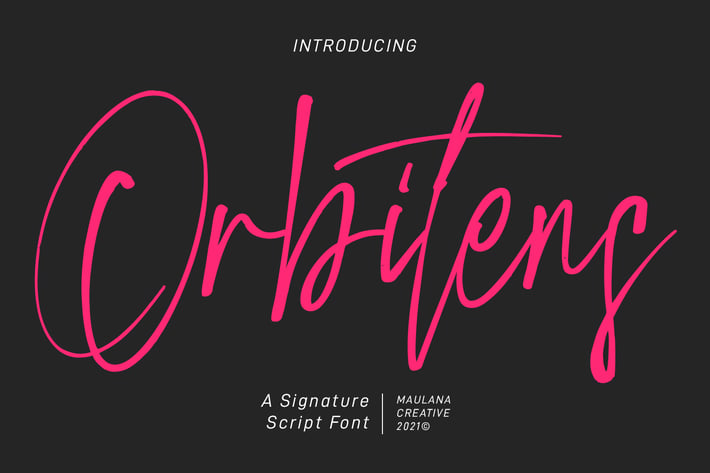
Orbitens Signatue Script Font
Orbitens is a fancy signature script font. With gel pen stroke, slanted and Unique Upper and lower characters with a bit of ligatures. To give you an extra creative work. Orbitens font support multilingual more than 100+ language. This font is good for logo design, Social media, Movie Titles, Books Titles, a short text even a long text letter and good for your secondary text font with sans or serif. Make a stunning work with Orbitens font.